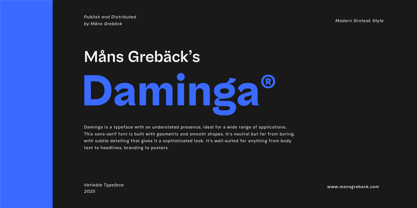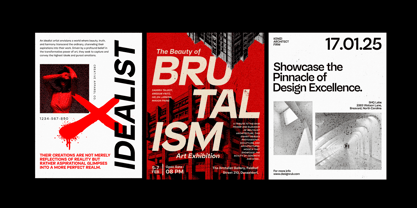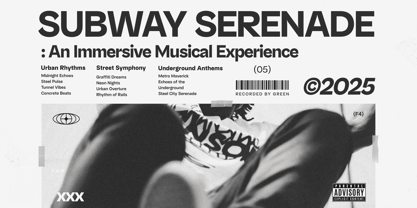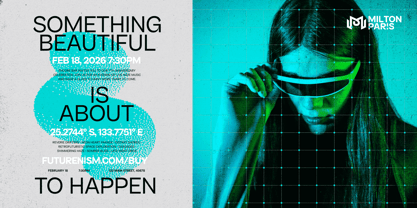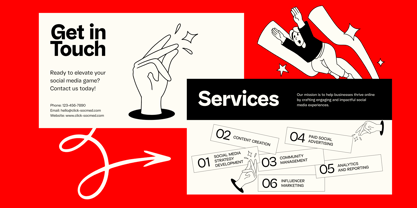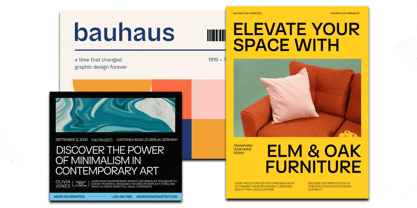
Daminga Variable
Daminga Variable is a typeface with an understated presence, ideal for a wide range of applications.
This sans-serif font is built with geometric and smooth shapes. It's neutral but far from boring, with subtle detailing that gives it a sophisticated look. It's well-suited for anything from body text to headlines, branding to posters. Imagine it gracing the pages of a modern magazine, the label of a high-end product, or the interface of a minimalist app.
Daminga Variable is made with variable font technology, allowing you to seamlessly adjust weight and style for ultimate flexibility and customization. Only one font file, but the file contains multiple styles.
Daminga is built with advanced OpenType functionality and guaranteed top-notch quality, containing stylistic and contextual alternates, ligatures and more automatic and manual features; all to give you full control and customizability.
It has extensive lingual support, covering all Latin-based languages, from North Europa to South Africa, from America to South-East Asia. It contains all characters and symbols you'll ever need, including all punctuation and numbers.
Mans Greback has crafted a typeface that is both modern and timeless, a versatile tool for any designer's arsenal.